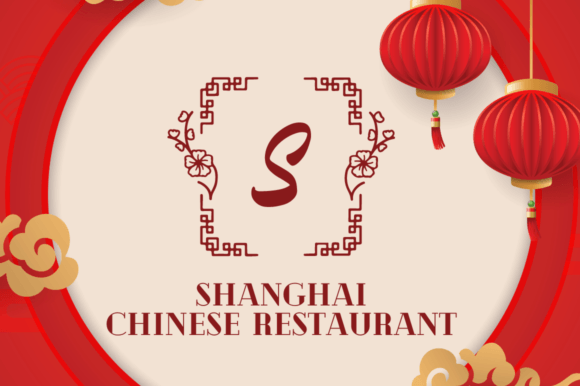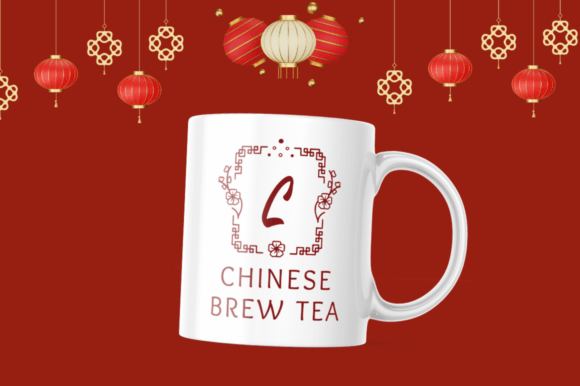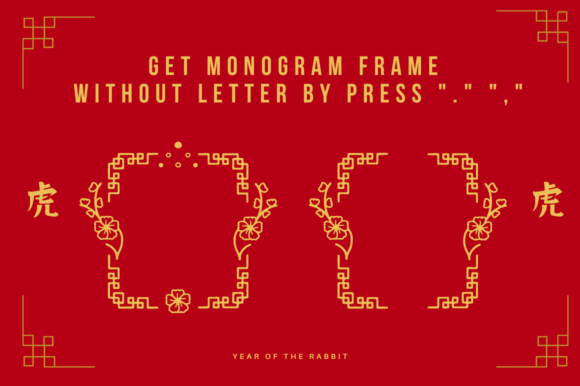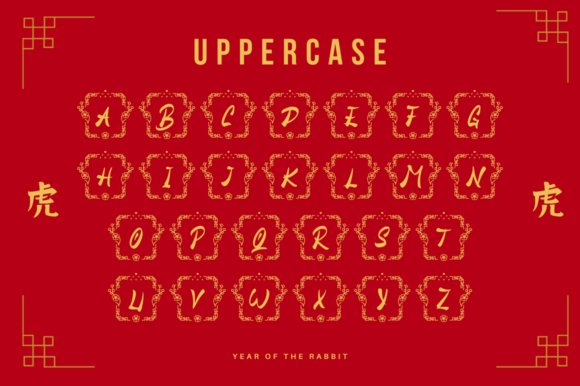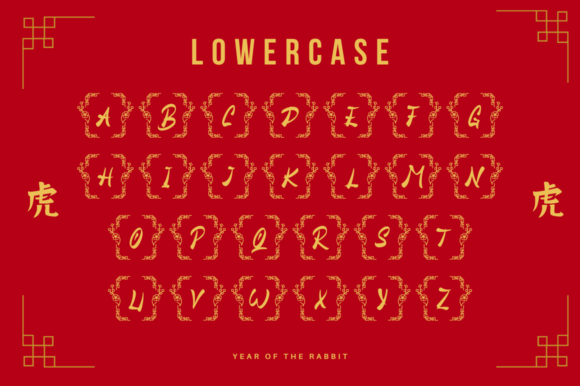
Introducing the Goan Chinese Monogram Font: Elevate Your Designs with a Touch of Elegance
Are you looking for a unique and stylish font to add a touch of sophistication to your designs? Look no further than the Goan Chinese Monogram Font. This lovely decorative font is perfect for creating stunning Chinese New Year themed gifts, decorations, and more. In this article, we’ll explore the features and benefits of the Goan Chinese Monogram Font, and how you can use it to take your designs to the next level.
What is the Goan Chinese Monogram Font?
The Goan Chinese Monogram Font is a beautiful decorative font that combines the elegance of traditional Chinese characters with the simplicity of modern typography. This font is perfect for designers and crafters who want to add a touch of cultural flair to their work. With its intricate details and ornate design, the Goan Chinese Monogram Font is sure to impress.
Features of the Goan Chinese Monogram Font
• Unique and decorative design: The Goan Chinese Monogram Font features a stunning design that is sure to stand out in any project.
• Perfect for Chinese New Year themes: This font is ideal for creating Chinese New Year themed gifts, decorations, and more.
• High-quality design: The font is designed with intricate details and ornate flourishes, ensuring a high-quality finish.
Uses for the Goan Chinese Monogram Font
The Goan Chinese Monogram Font is versatile and can be used in a variety of projects, including:
• Chinese New Year themed gifts: Create stunning gifts, such as tea towels, mugs, and more, with a personal touch.
• Home decor: Add a touch of elegance to your home decor with custom wall art, signs, and more.
• Kids’ gifts: Create fun and educational gifts for kids, such as personalized books, puzzles, and more.
• Stationery and invitations: Add a touch of sophistication to your stationery and invitations with the Goan Chinese Monogram Font.
Tips for Using the Goan Chinese Monogram Font
Here are some tips for getting the most out of the Goan Chinese Monogram Font:
• Experiment with different colors and textures: Add depth and interest to your designs with different colors and textures.
• Pair with other fonts: Combine the Goan Chinese Monogram Font with other fonts to create a unique and eye-catching design.
• Use in combination with images: Add visual interest to your designs by combining the font with images or graphics.
The Goan Chinese Monogram Font is a stunning decorative font that is perfect for designers and crafters who want to add a touch of elegance to their work. With its unique design and versatility, this font is sure to be a hit in any project. Whether you’re creating Chinese New Year themed gifts, home decor, or stationery, the Goan Chinese Monogram Font is the perfect choice. So why wait? Download the Goan Chinese Monogram Font today and start creating your own stunning designs!